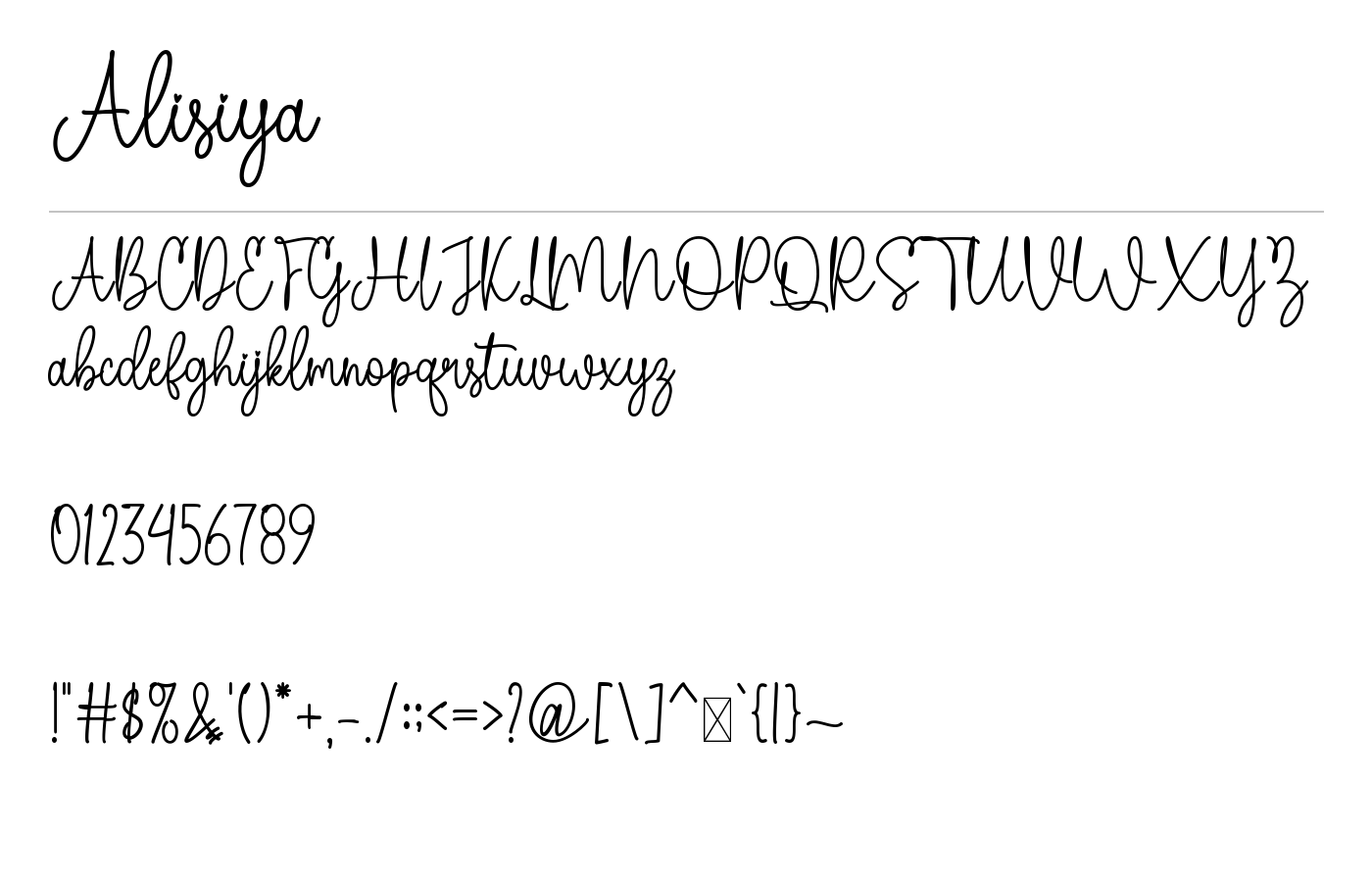
Alisiya is a delicate and playful script font featuring elegant, narrow letterforms with a handwritten feel. Its thin strokes and whimsical curves give it a personal, friendly touch, making it ideal for invitations, branding, and creative projects that seek a warm, approachable style. This font works well in designs that benefit from a light, airy aesthetic with a sense of charm and individuality.
Alisiya Font
About Alisiya Font
| Font family | Alisiya Font |
| Designer | Danar Nugroho |